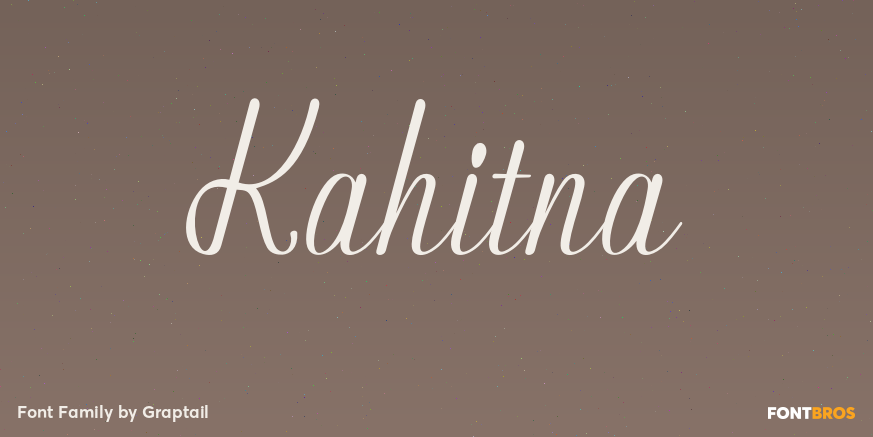
Kahitna
About Kahitna
Kahitna is a surreal script that combined brush lettering with traditional hand writing. It is multipurpose and flexible, make it easy to match with another typefaces to create some beautiful project such as wedding invitation, vintage design, greeting…